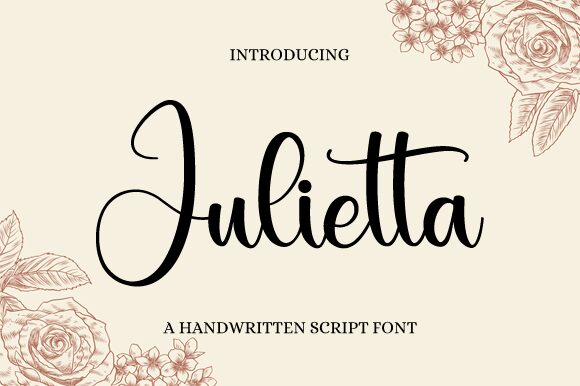
Julietta, crafted by Nirmala Creative, embodies elegance with its calligraphy style and semi-light weight. This font's sweeping curves and refined strokes convey a sense of sophistication and personal touch that is reminiscent of traditional hand-written letters. The balanced ascenders and descenders in Julietta add a rhythmic flow to text, making it visually appealing for both digital and print mediums.
With its artistic flair, Julietta is an ideal choice for branding, wedding invitations, greeting cards, and any project that demands a touch of finesse. Its calligraphic nature ensures that it stands out in creative endeavors where a personal, humanistic feel is essential. Embrace the charm of Julietta to elevate your designs with an aura of bespoke craftsmanship.